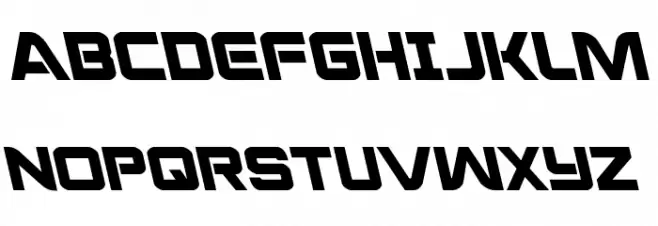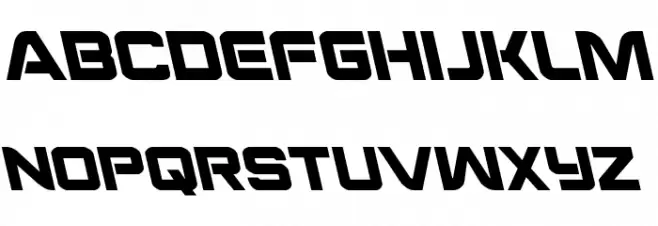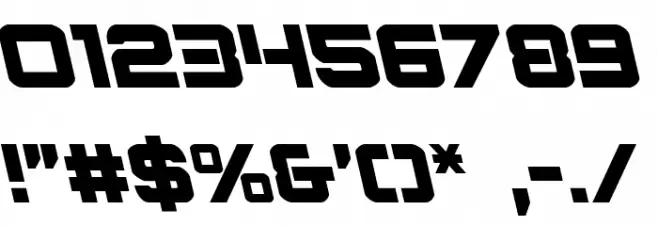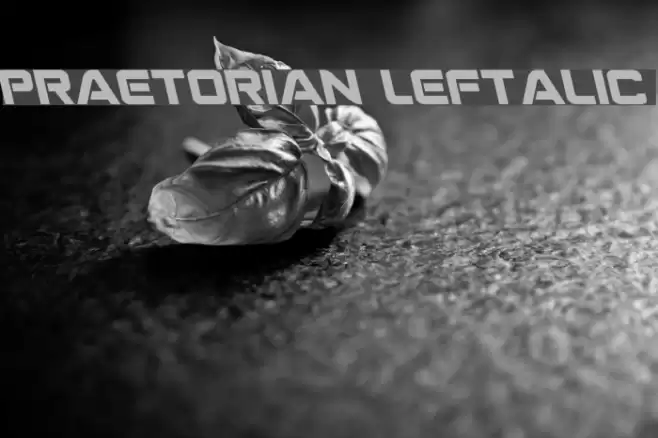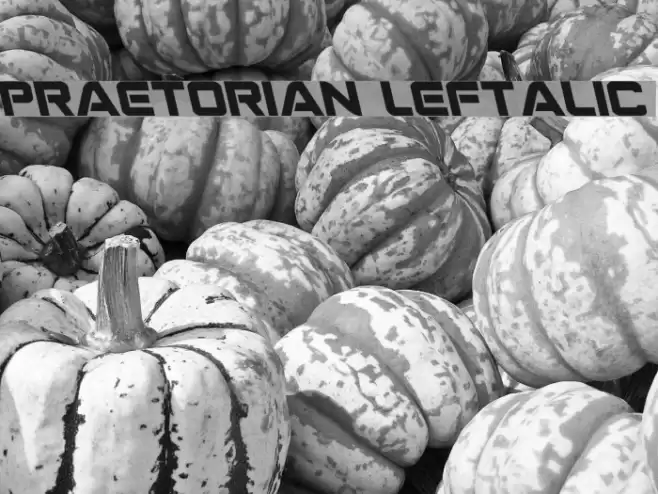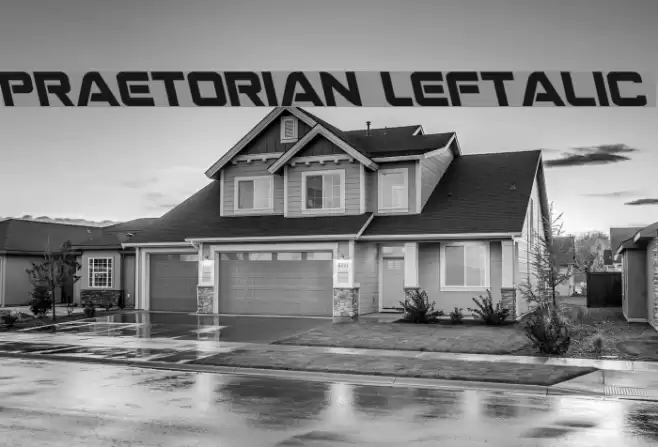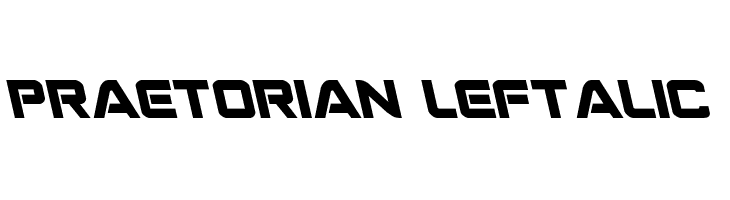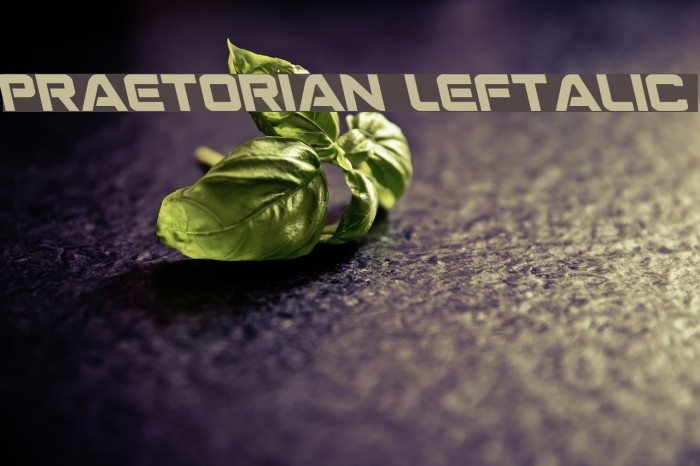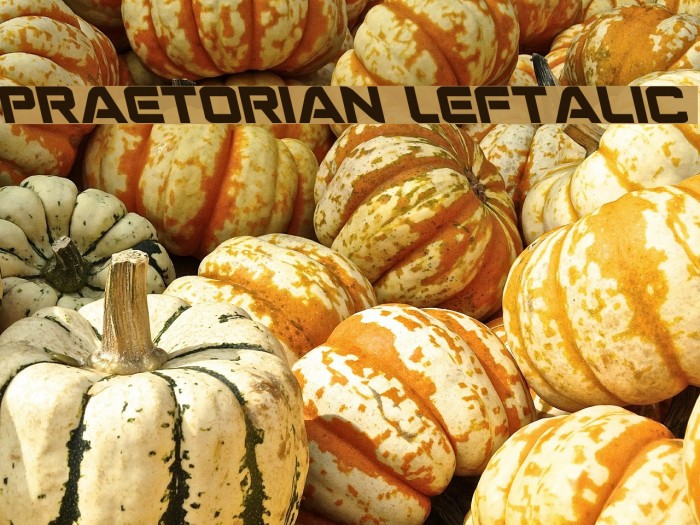
Praetorian Leftalic
This font features a bold and dynamic style with a futuristic and angular design. The characters are slightly slanted, giving a sense of motion and energy. The strokes are thick and consistent, providing a strong visual impact. The geometric shapes and sharp edges contribute to its modern and edgy appearance. It is highly legible and stands out due to its unique structure, making it suitable for attention-grabbing designs.
A bold, angular font with a futuristic and dynamic style.
- Proposed Projects: Ideal for sci-fi themed projects, sports branding, video game titles, and dynamic posters.